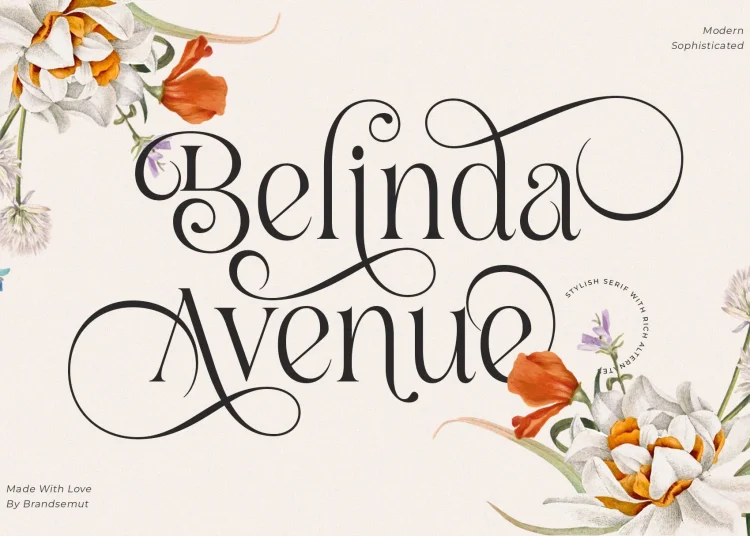
Belinda Avenue
Belinda Avenue stands out as a classic and stylish display serif font, meticulously designed to infuse any project with a sense of refined elegance. With its rich array of stylistic alternates, this font is ideal for a range of high-impact applications, including headings, logos, branding, magazine layouts, product packaging, and invitations. Belinda Avenue’s distinctive character is enhanced by its elegant ligatures and diverse alternates, offering a unique and personalized touch to your design work.
The font’s clean lines and smooth curves contribute to its sophisticated appearance, making it perfect for projects that require an extra touch of class. Whether you’re creating standout branding materials, crafting eye-catching magazine covers, or designing stylish invitations, Belinda Avenue’s versatility ensures it adapts beautifully to various creative needs. Its combination of traditional serif features with modern design sensibilities allows it to elevate your projects with a timeless, yet contemporary flair.